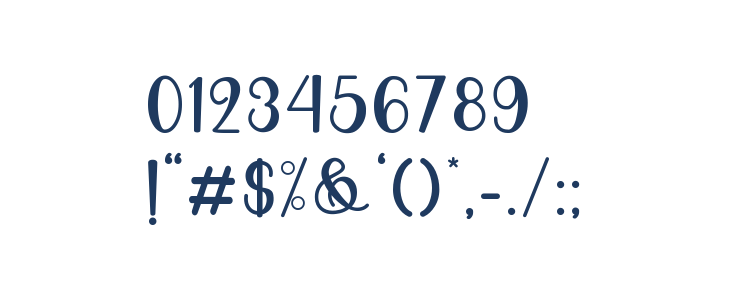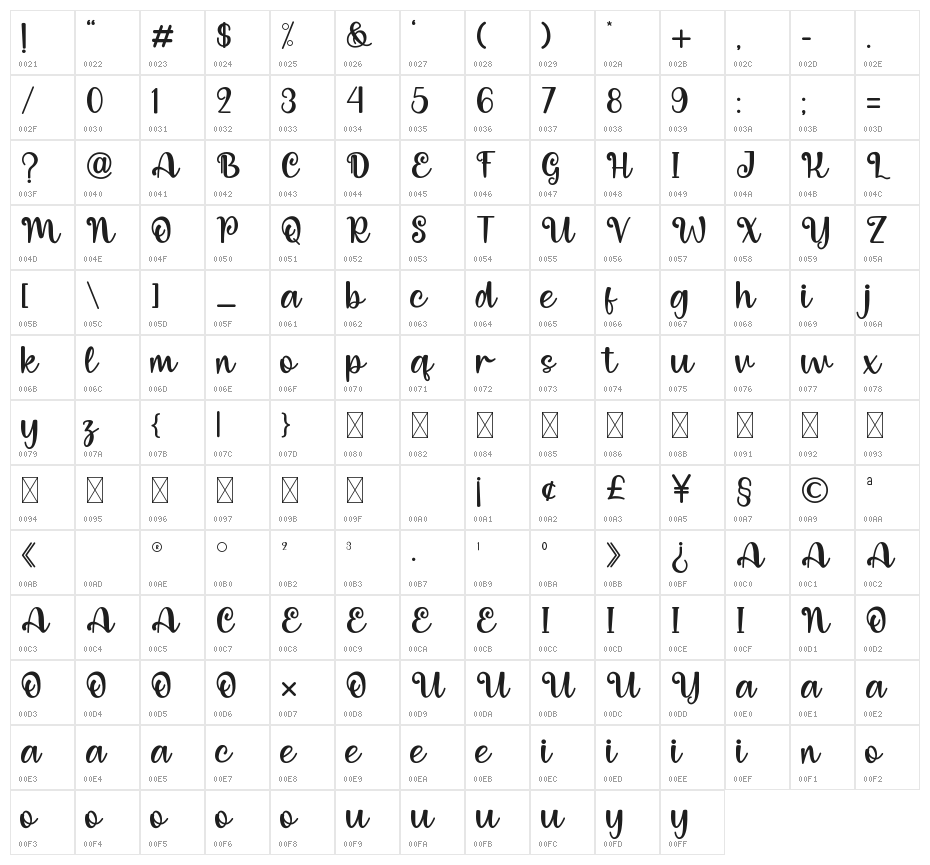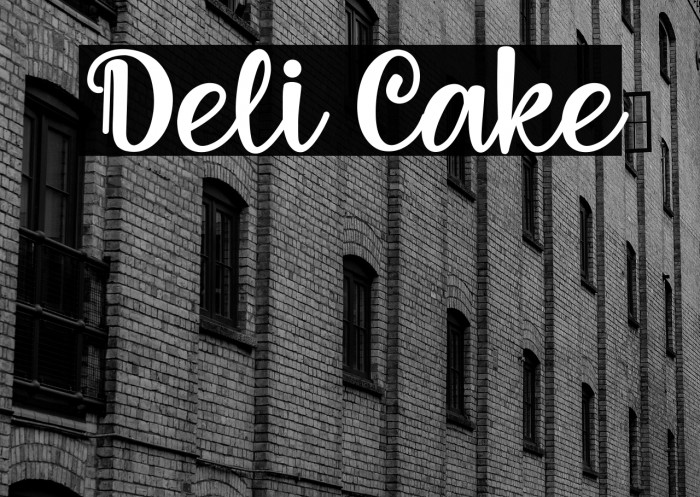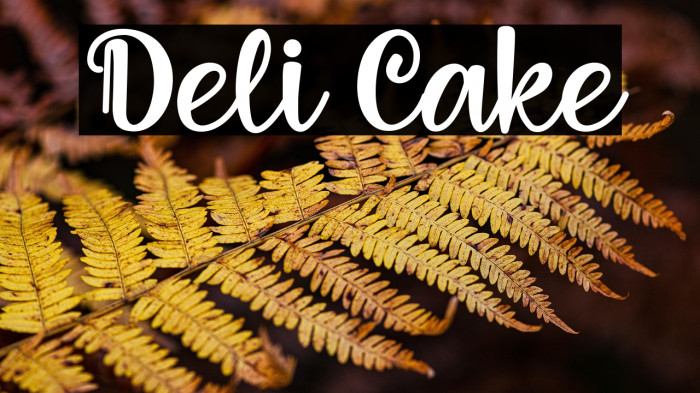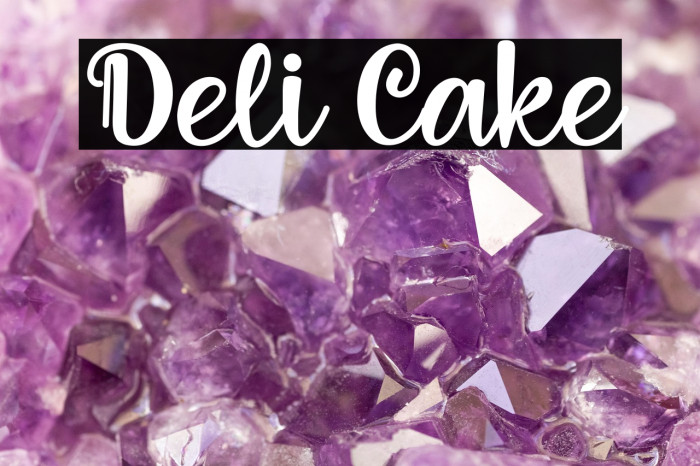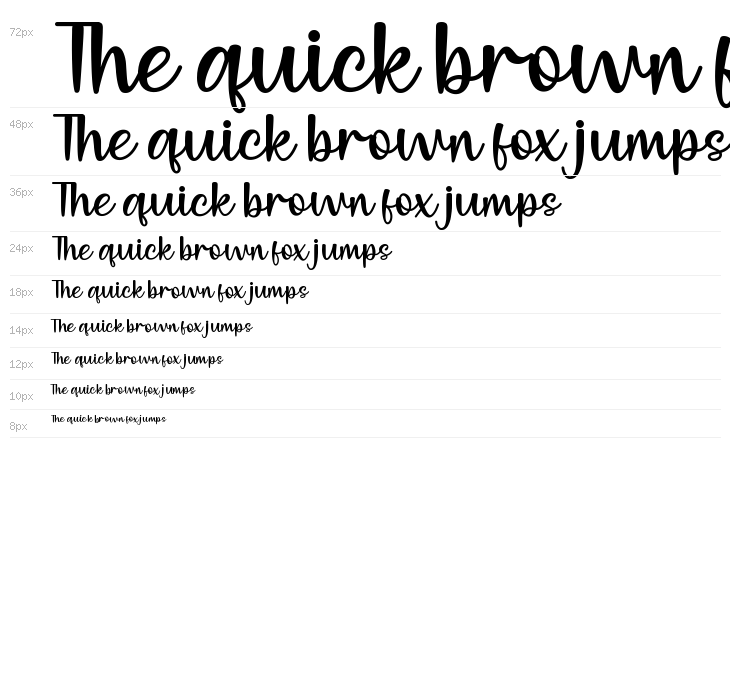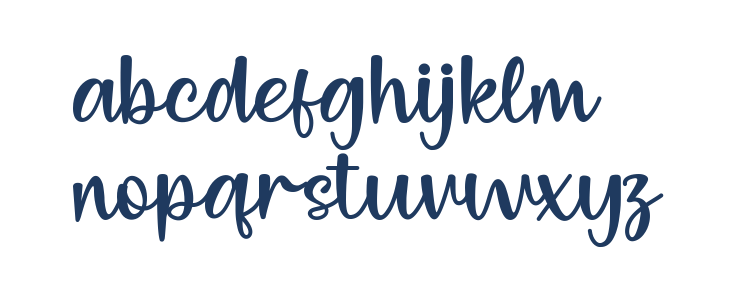
Deli Cake Font
Deli Cake Description
This font features a playful and whimsical script style with a handwritten feel. The uppercase letters are bold and curvaceous, with a slight slant that adds a dynamic flow to the text. The lowercase letters maintain a consistent style, with rounded edges and smooth curves that enhance readability. Numbers are well-integrated, matching the playful aesthetic of the alphabet. Special characters are creatively designed, adding a unique touch to the overall appearance. The font's design is both elegant and approachable, making it suitable for a variety of creative projects.